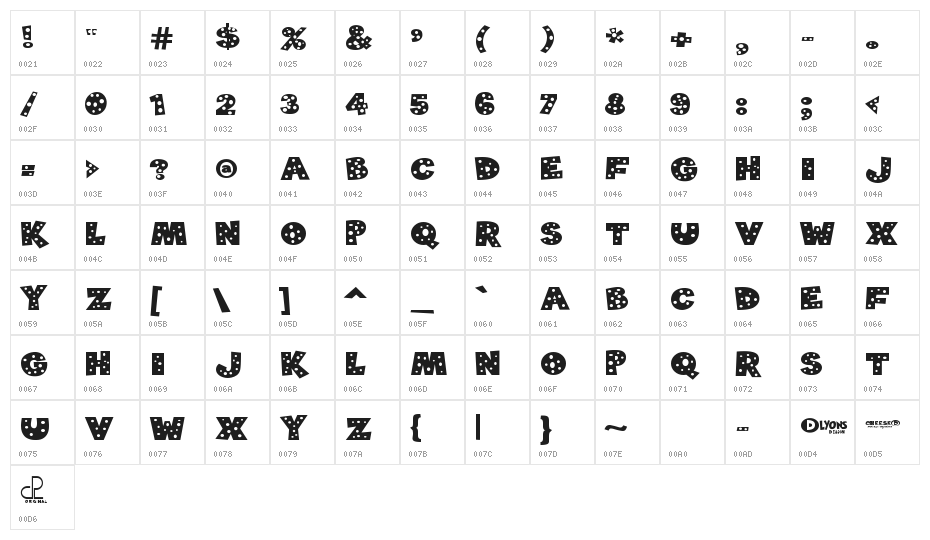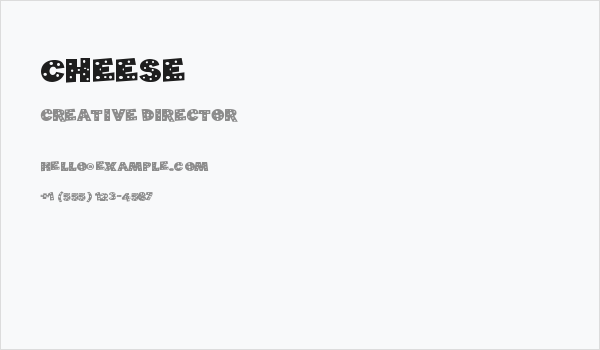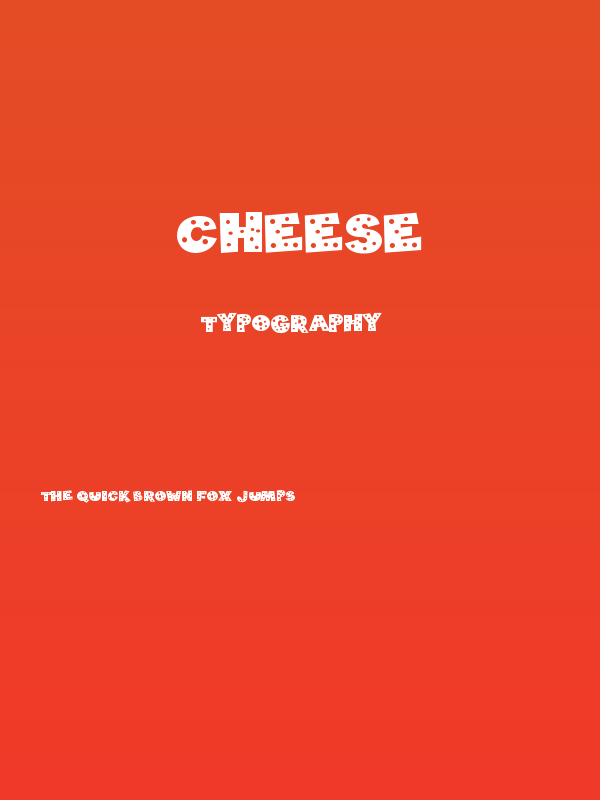
Cheese Font
| Stile generale | Playful, Whimsical |
| Progetti proposti | Ideal for children's books, food-related branding, playful posters, and party invitations. |